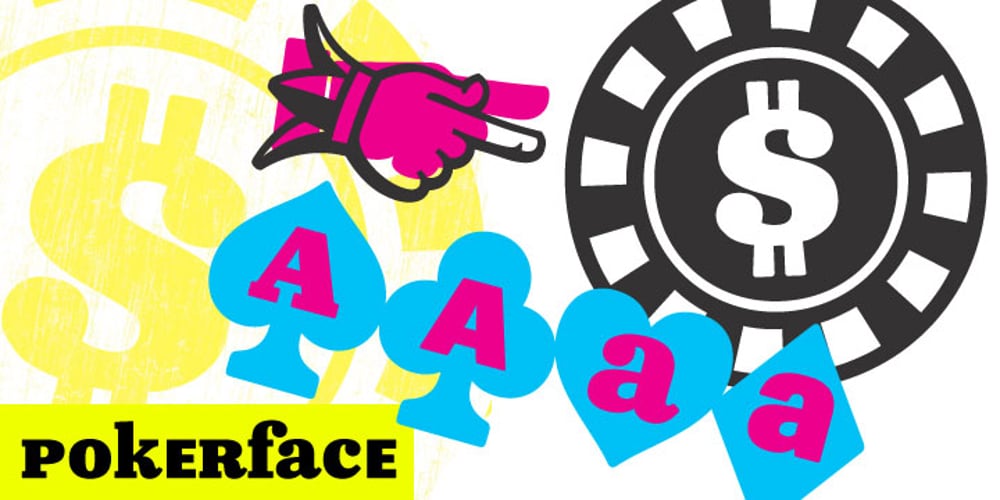
Pokerface Font Family was designed by Jim Ford and published by Ascender. Pokerface contains 1 styles and family package options. Pokerface is an industrious mixed-case display font devised on the theme of playing cards, designed by Jim Ford. Most letterforms in the font have ‘four of a kind’ while some are only available in pairs. It features Clarendon-style slab serif and grotesque sans serif forms. Furthermore, the letterforms are ‘shuffled’ to give a random appearance in standard text. It fuses a utilitarian sturdiness with a soft and friendly feel, and adds a bold flare to headlines, logos and posters. Character Set – Latin 1, OpenType extras.